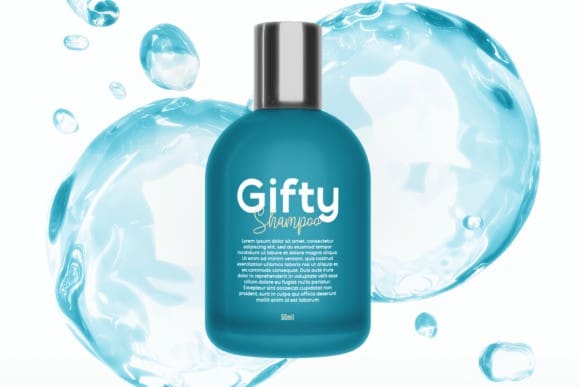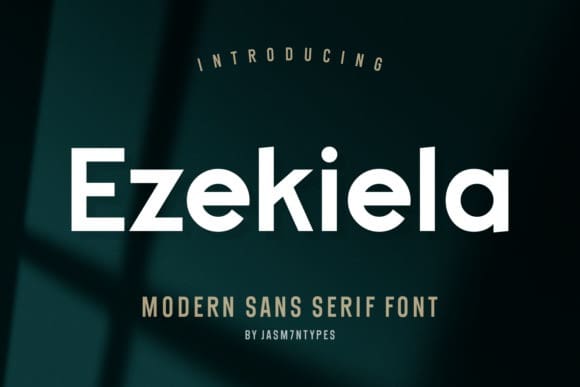
Ezekiela Font
Ezekiela Font is a modern sans-serif font with a clean and contemporary look. Its simple design brings a fresh and stylish vibe to any project. Perfect for a wide range of uses, from eye-catching titles to easy-to-read body text. Upgrade your design with the sleek simplicity of Ezekiela for a modern touch that stands out.